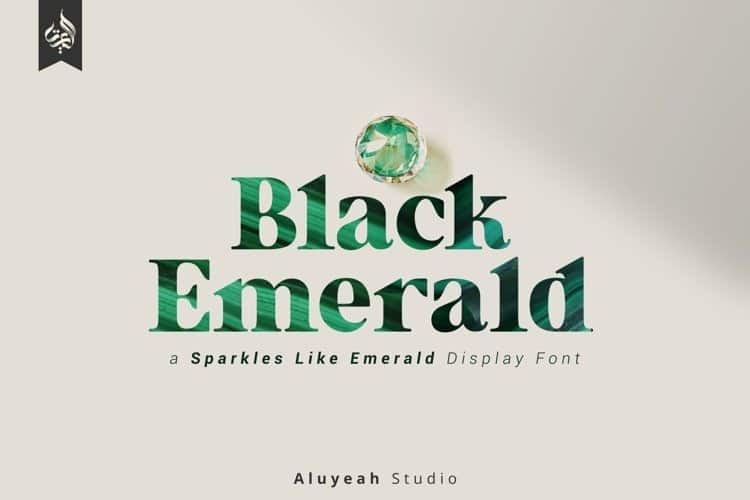
Black Emerald Font
Black Emerald Serif Font is high contrast, exotic display serif. It’s unique letterform shown elegance and beauty. Coming to you with stunning regular and outline style, sparkles like emerald to create a perfectly fashionable, beautiful, fancy, and elegant design.